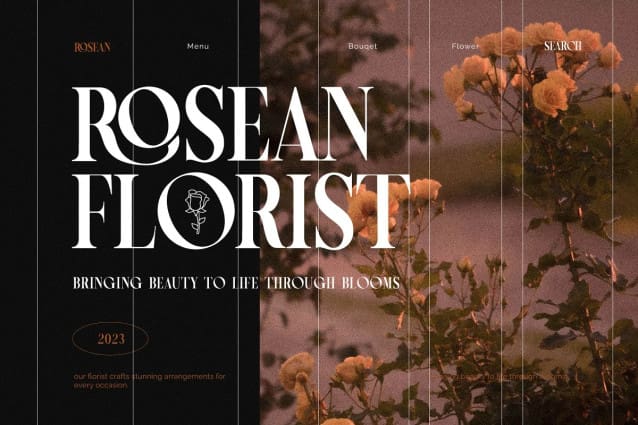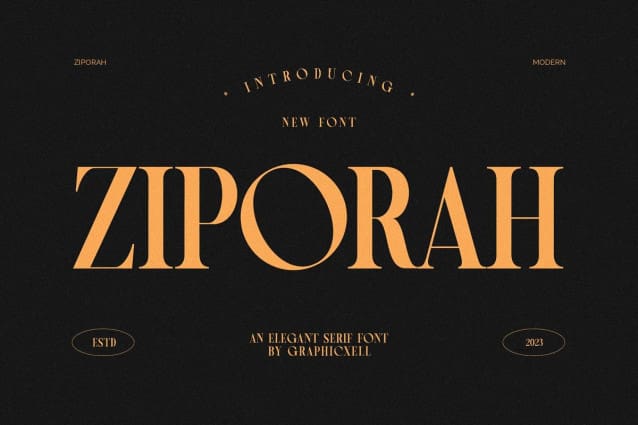
Ziporah Font
Ziporah Font, inspired by the famous minimalist logo perfect for the purposes of designing templates, brochures, videos, advertising branding, logos, invitation, layout design, elegant crafting, beauty design and more.